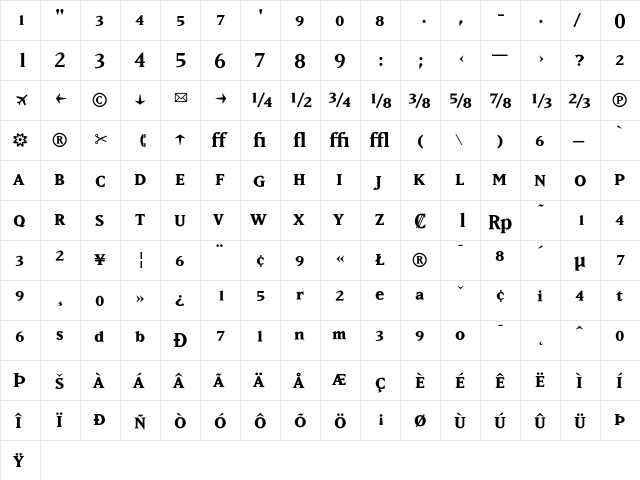
MatrixBoldFractions Regular
MatrixBoldFractions is a composed and adaptable typeface that performs quietly and consistently across a wide range of design contexts. The heavy weight commands attention and anchors typographic hierarchies.